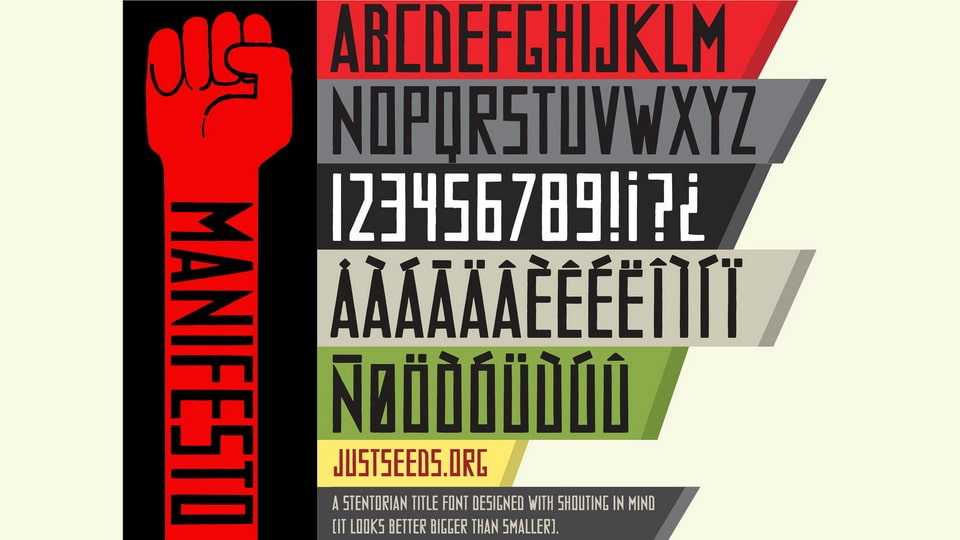
Download Manifesto font, a bold and commanding rectangular sans-serif typeface that pays homage to the iconic mastheads of communist newspapers.
Designer: Justseeds Open Type Project